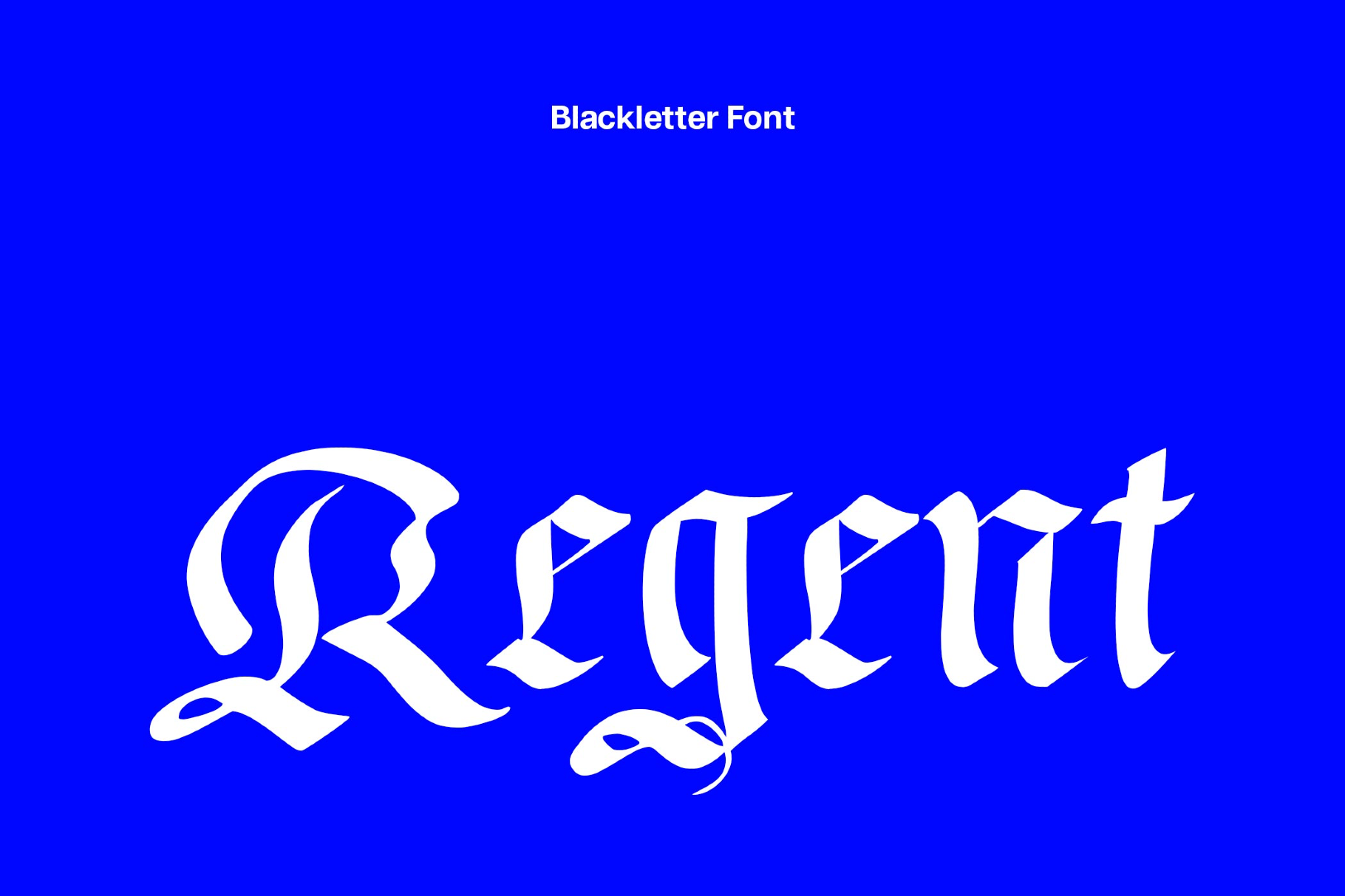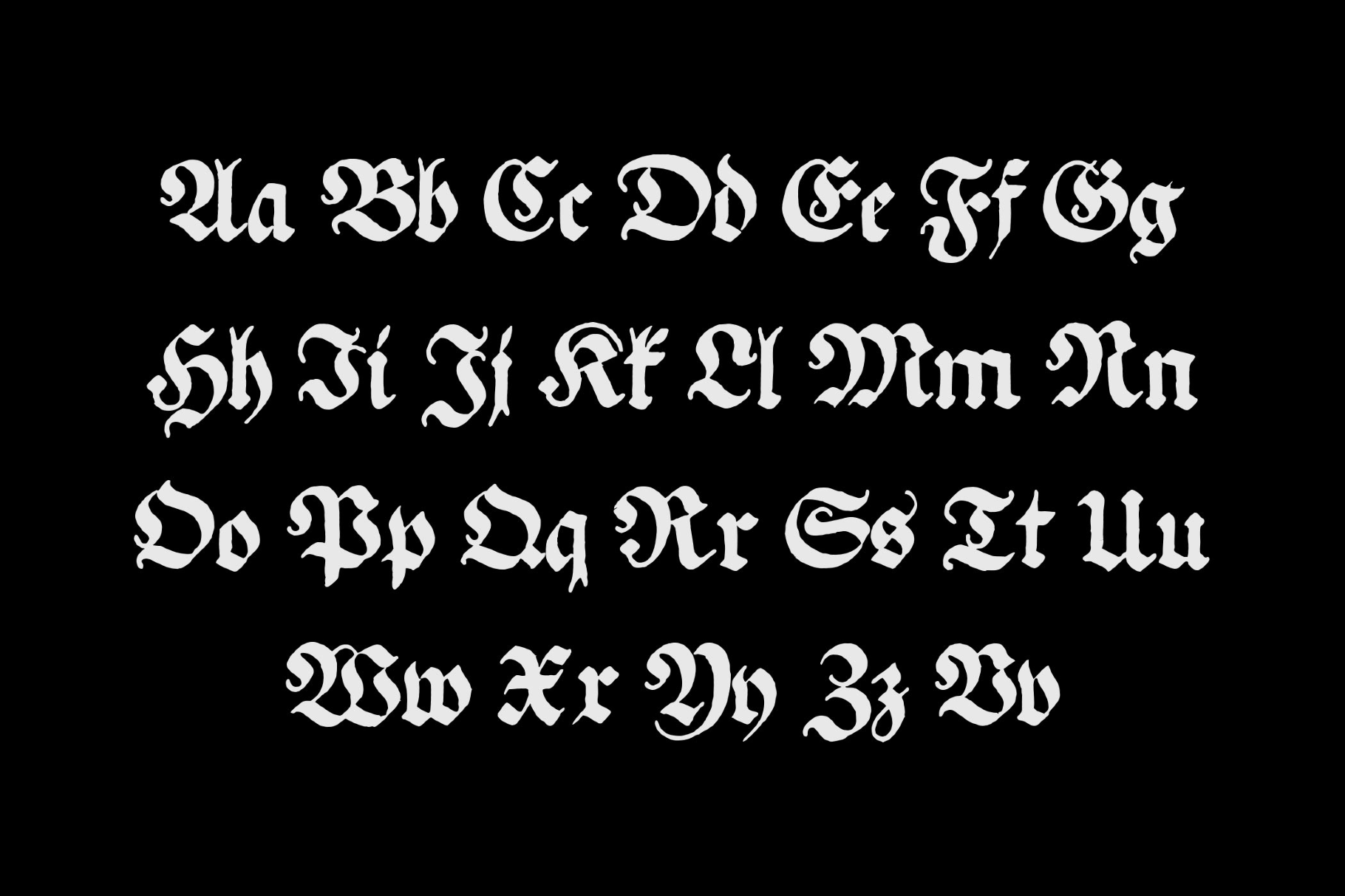
Regent UNZ — Blackletter Font
Regent UNZ
Tall ascenders, pointed joins, and open counters help Regent UNZ stay readable at mid-size settings, which is quite a feature for a blackletter display. Carefully tuned ligatures stitch common pairs into smooth, compact word shapes.
Use it for newspaper nameplates, heavy-music merch, festival posters, craft-beer labels, tattoo flash headings, occult or horror film titles, RPG covers and UI, museum exhibition graphics, heritage certificates, and streetwear tags.